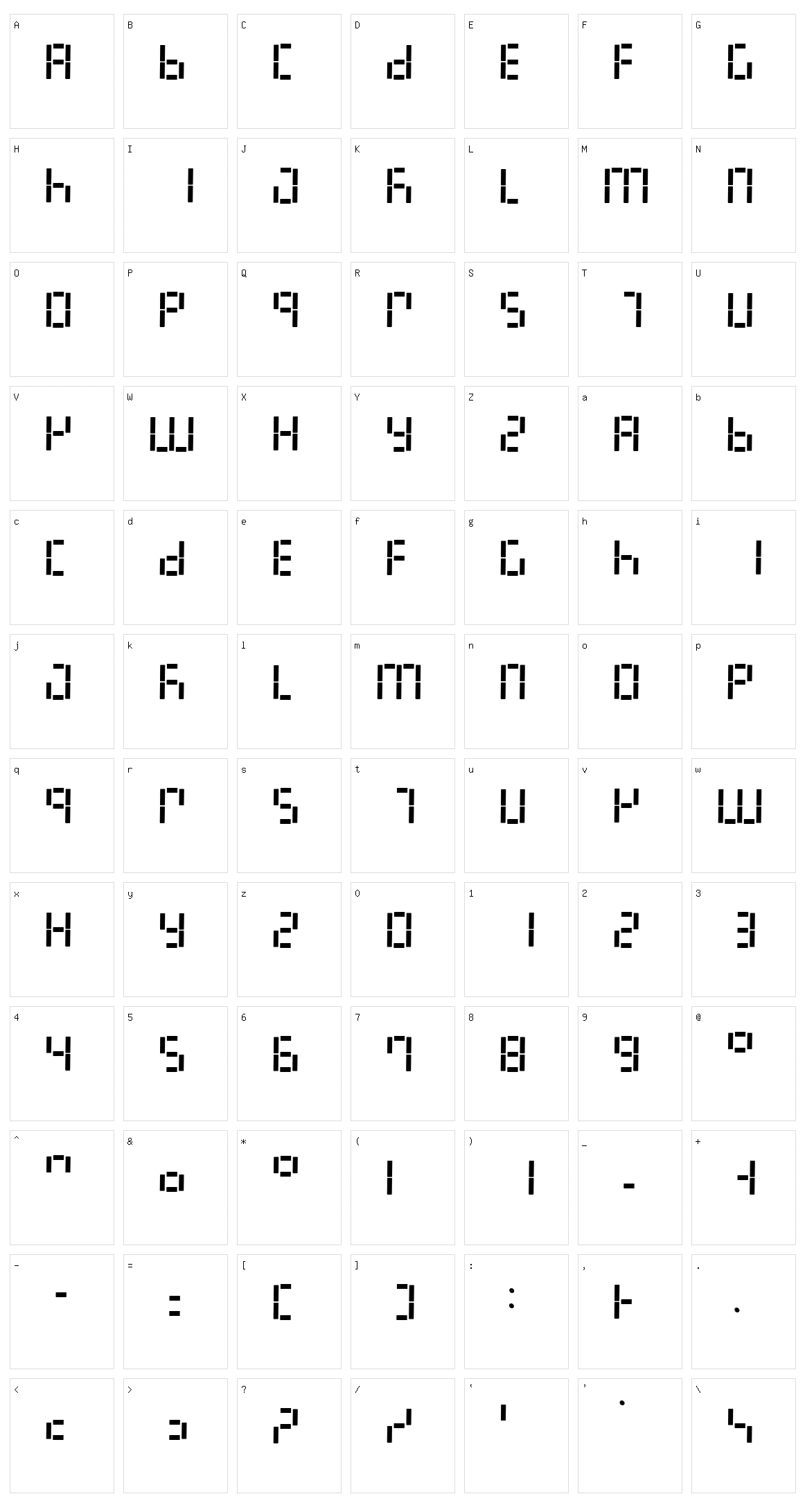
LED Digital 7
Designed by: Style-7
Category: LCD & Futuristic
Original seven segments digital font. The font has "Regular" and "Italic" styles.
* Symbol ":" is corrected.
* Regular style is added;
* Angle for italic style is decreased;
* Letters "a-z" is added.